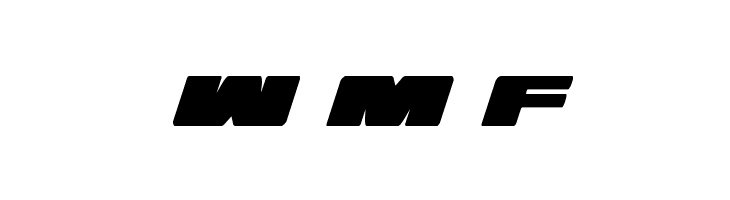
A bold, extra-condensed italic font with a modern, futuristic style.
A bold, futuristic font with a unique striped pattern and dynamic visual effect.
A bold, italic, 3D font with a futuristic and geometric design.
A bold, expanded, and italicized modern font with strong visual impact.
A bold, italicized font with a futuristic, geometric design.
A bold, italic font with a futuristic gradient line design.
A playful and whimsical font with heart motifs and rounded characters.
A playful font with characters resembling handprints, ideal for fun and informal projects.
The image contains decorative icons, not a font.
A playful font with characters enclosed in alarm clock designs, ideal for creative projects.
Recent favorites include Illumino Extra-Condensed Italic, Illumino Gradient, Illumino 3D Italic, Illumino Expanded Italic and Illumino Academy Italic. They balance clarity and personality, working well for tech brands, editorial layouts, and social visuals.